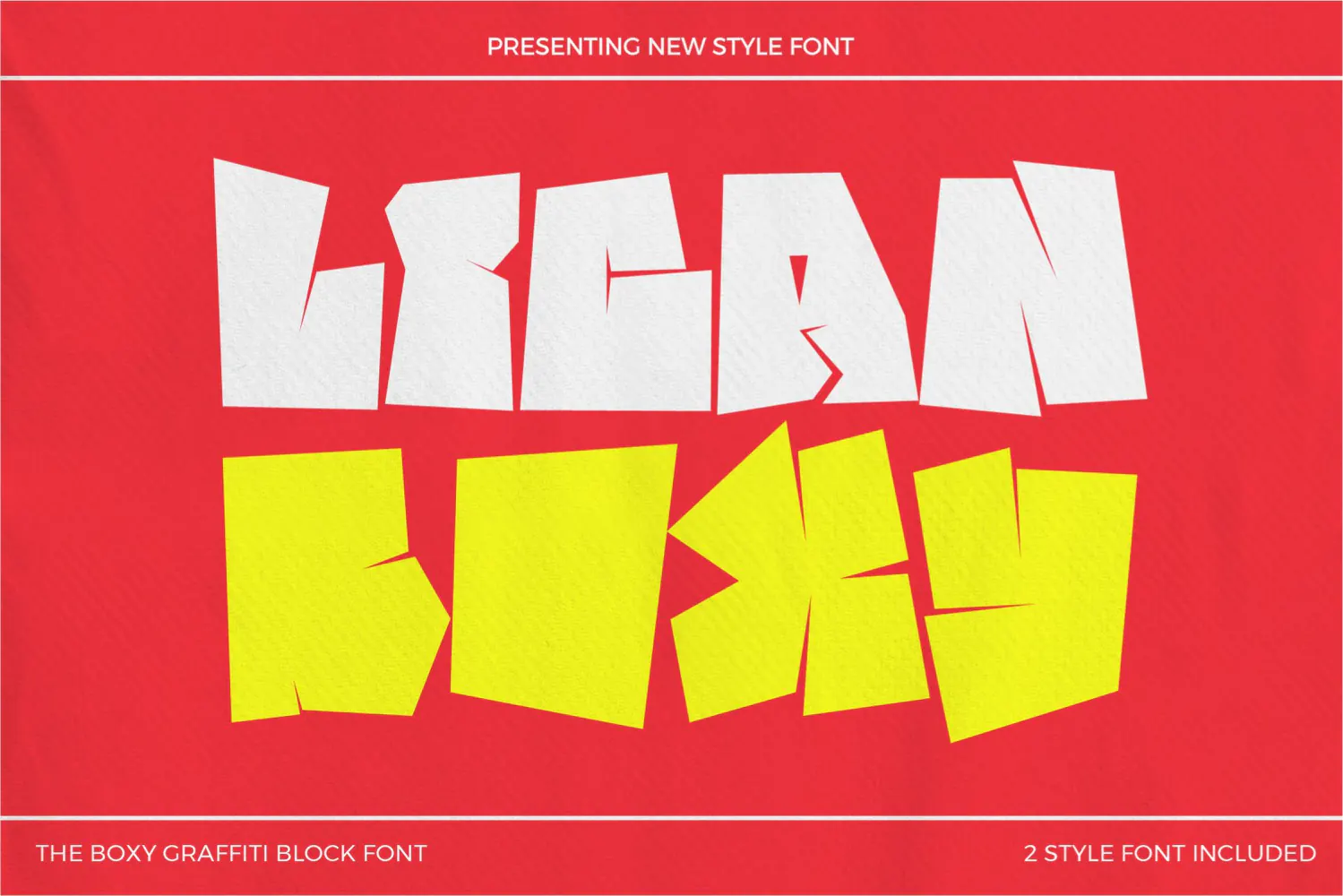
Lican Boxy Graffiti Block Font | Heavy Urban Display Typefac
Lican Boxy is a bold and unconventional graffiti block display font inspired by urban street art, experimental lettering, and raw geometric forms. Featuring chunky, angular, and irregular letter shapes, this typeface delivers a strong contemporary graffiti aesthetic with a distinctive handmade feel.
The unusual construction of each character gives Lican Boxy an energetic and rebellious personality, making it an excellent choice for designs that need bold visual impact and street-inspired typography. Its solid block shapes work especially well for large headlines, logos, posters, apparel graphics, album artwork, stickers, packaging, social media designs, and merchandise.
Lican Boxy includes 2 font styles, giving you additional flexibility when creating dynamic typographic compositions. Combine the styles to create contrast, layered lettering, unique titles, or different visual treatments within the same design project.
The font is particularly suitable for graffiti branding, streetwear collections, urban posters, hip-hop artwork, skate graphics, gaming visuals, music covers, youth-oriented branding, and experimental graphic design.
If you're looking for a typeface with a boxy, bold, rough, urban, and experimental character, Lican Boxy can bring a powerful graffiti-inspired identity to your next creative project.